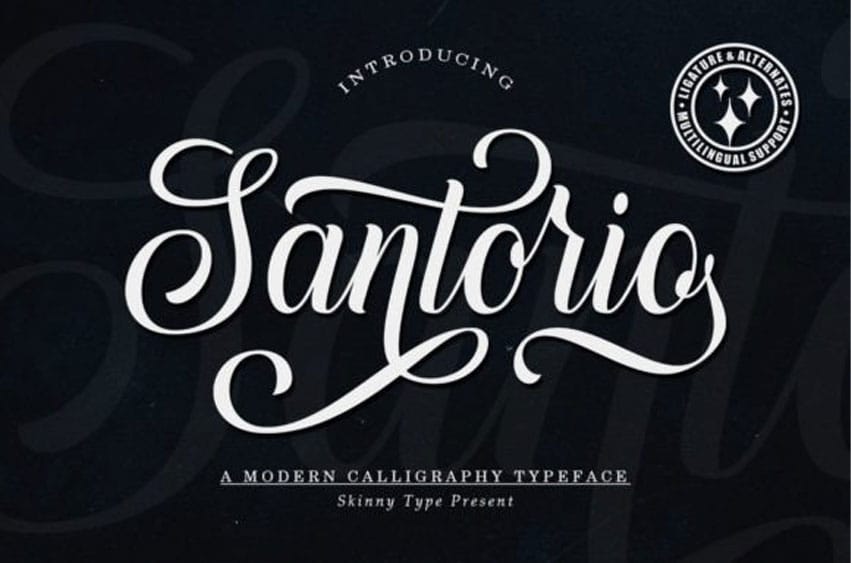
Santorio Font is a gorgeous script font that fits incredibly well for this time of the year. No matter the topic, this font will be an incredible asset to your font library, as it has the potential to elevate any creation.